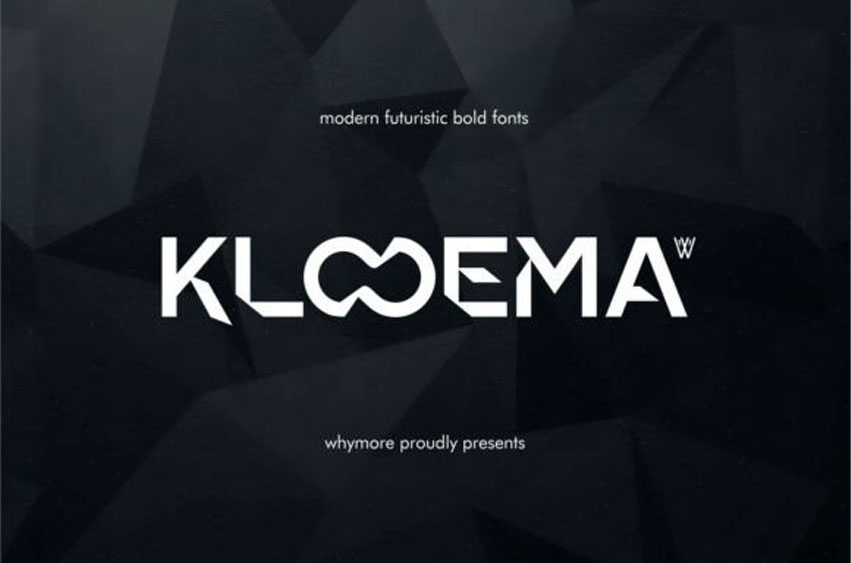
Kloema Font is a bold and futuristic sans serif font designed for modern logos, tech branding, and luxury business identity. With its distinctive geometric shapes and infinite “OO” letterform, Kloema stands out as a signature font for high-end brands, creative agencies, fashion tech, and crypto startups.
Ideal for corporate stationery, digital media, packaging, and professional website design. Its unique combination of strength and elegance brings timeless appeal to any visual project.